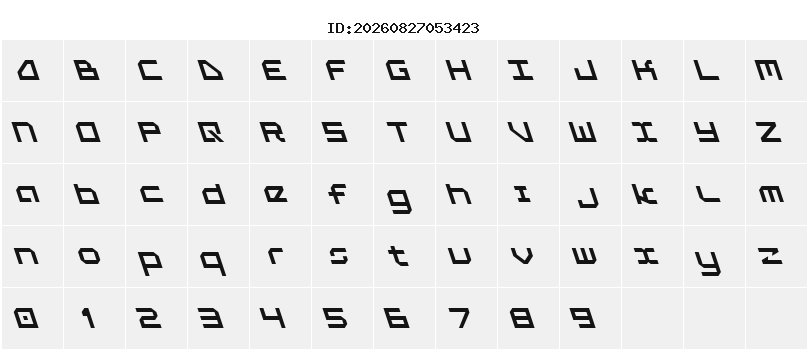
• Font Name: 5th Agent Leftalic
• Full Font Name: 5th Agent Leftalic
About 5th Agent Leftalic.ttf
5th Agent Leftalic.ttf is a modern, elegant sans-serif font designed for ultimate readability and visual harmony. Perfect for branding, headlines, web design, and print materials.